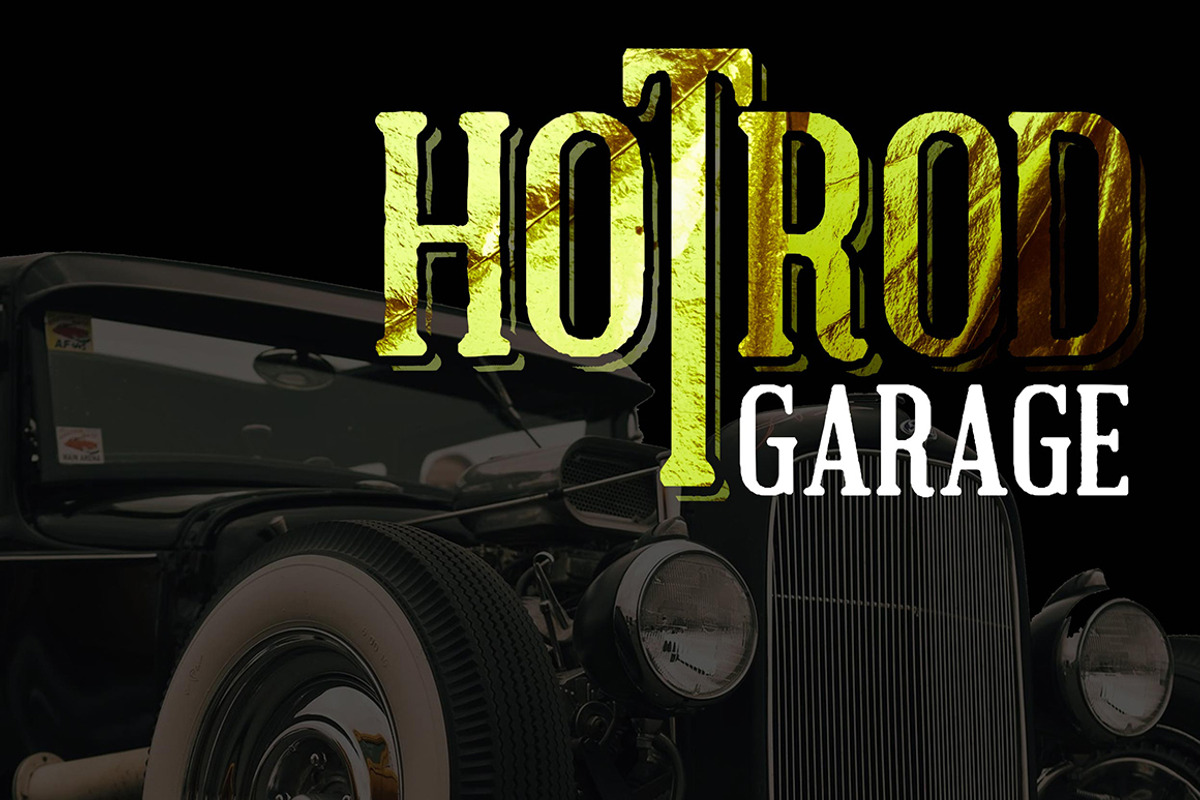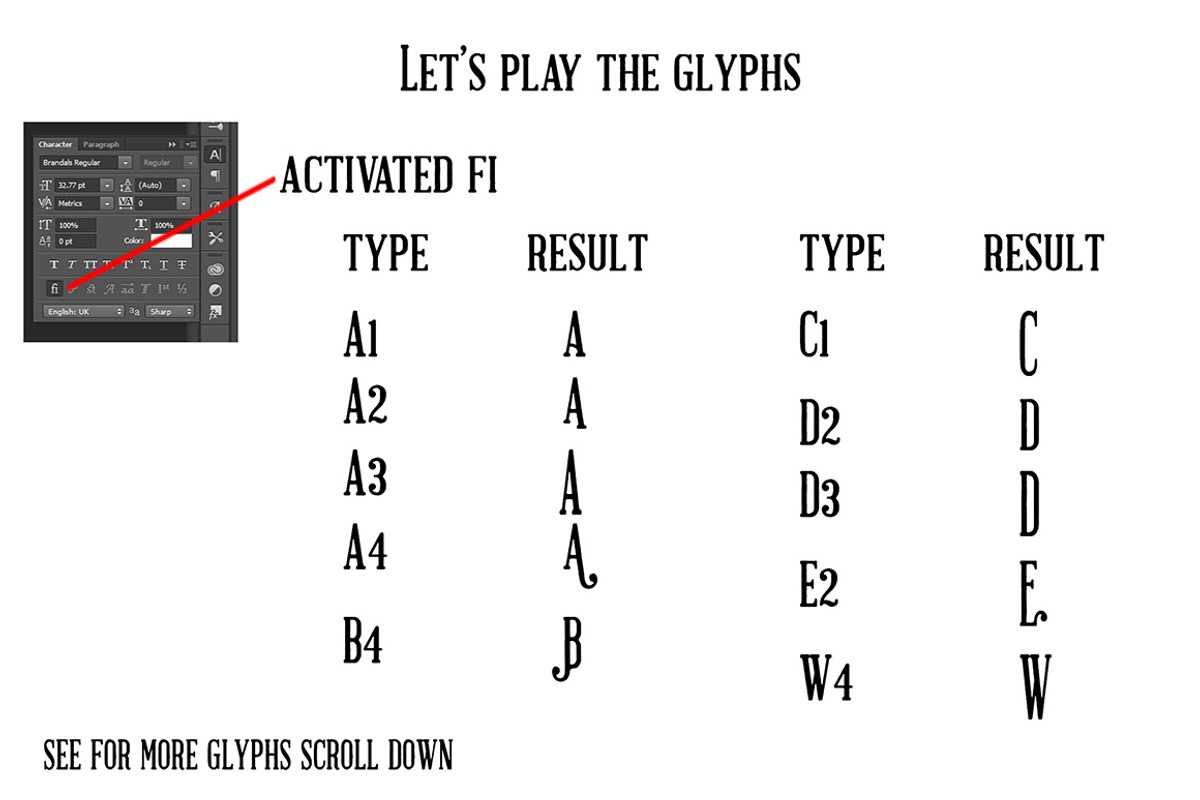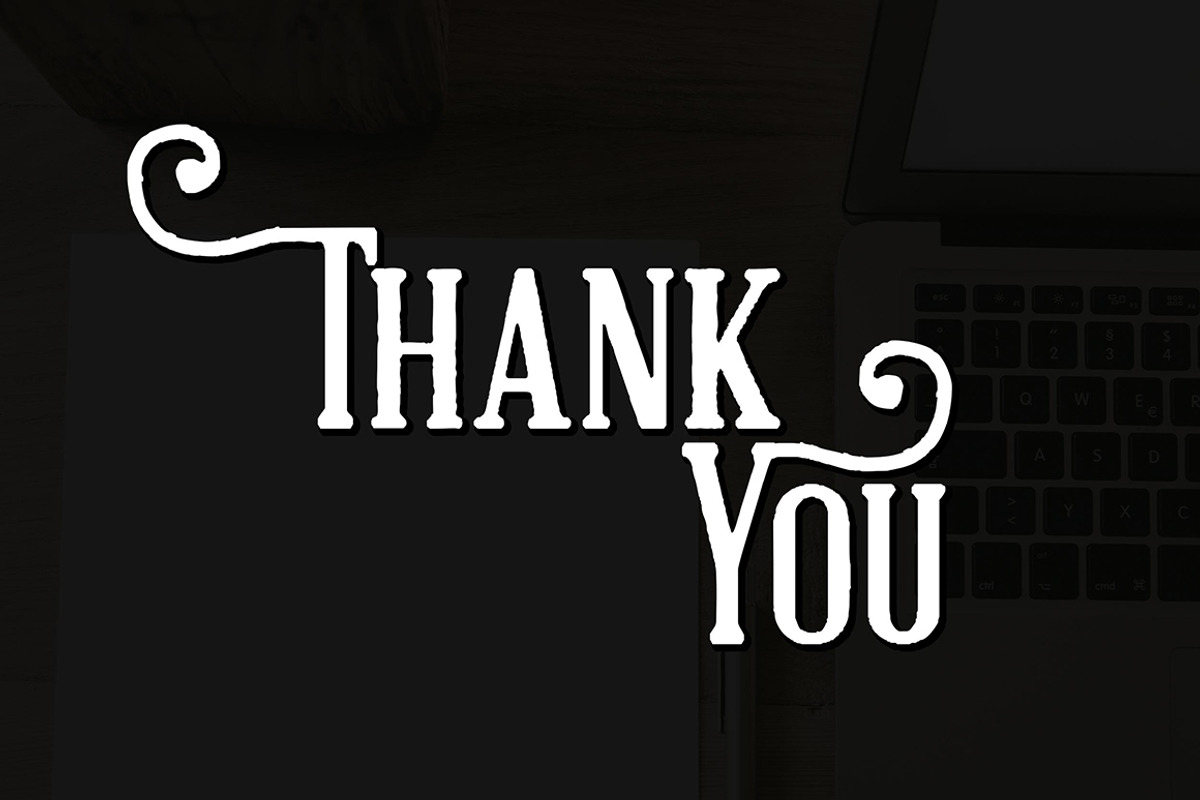
The Brandals
Brandals fonts is inspired poster gigs in 80. You could use this font for the poster, album or single cover. Font is also equipped with several alternatives. For example: you type A1 or A2 in prewiew, you'll find something different ...